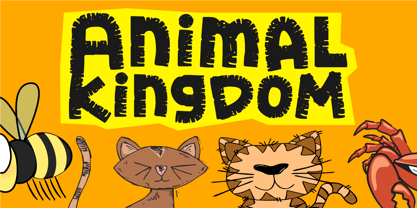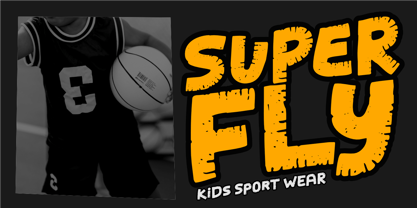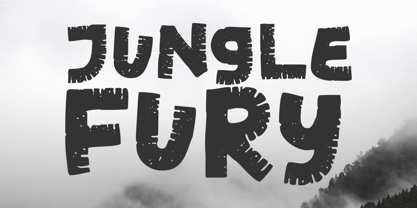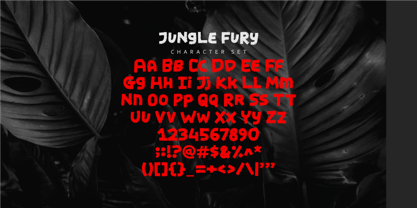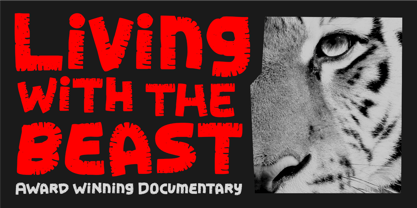
Jungle Fury
The Jungle Fury Font Family was designed by Nurul Hidayani and published by Olivetype. Jungle Fury contains 1 styles.
Jungle Fury is a fierce and untamed brush display font designed for those who seek to make a powerful impact. With its bold strokes, natural edges, and rugged textures, this typeface embodies the raw spirit of the wilderness and the primal force of nature. Each letter is hand-drawn with a distressed finish, providing a wild, authentic, and gritty aesthetic that feels alive. Ideal for high-energy projects, Jungle Fury enhances artwork with intensity and attitude. It’s perfect for movie posters, gaming titles, sports branding, street apparel, survival themes, adventure logos, event promotions, packaging, album covers, social media graphics, and striking merchandise designs. The organic textures and rough brush style make it suitable for projects that require drama, aggression, or a rebellious edge. Whether aiming for a tribal, savage, jungle, or action-packed look, this font delivers unstoppable visual strength. The uneven strokes and grunge finishes introduce movement and chaos while maintaining powerful readability. From primal survival vibes to contemporary adventure branding, this font commands attention in any setting. Unleash the beast in your design—Jungle Fury is crafted for creators who embrace boldness, wildness, and unapologetic fierceness.